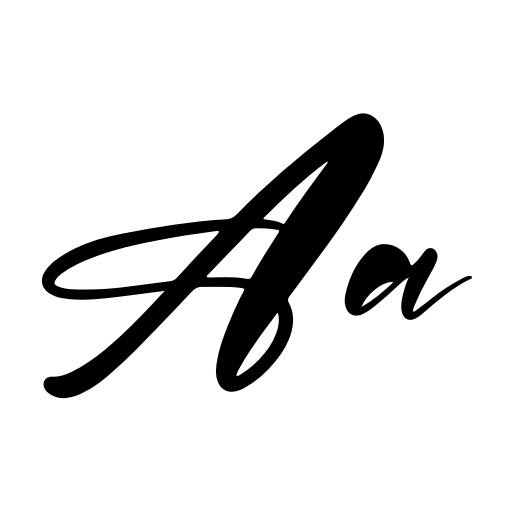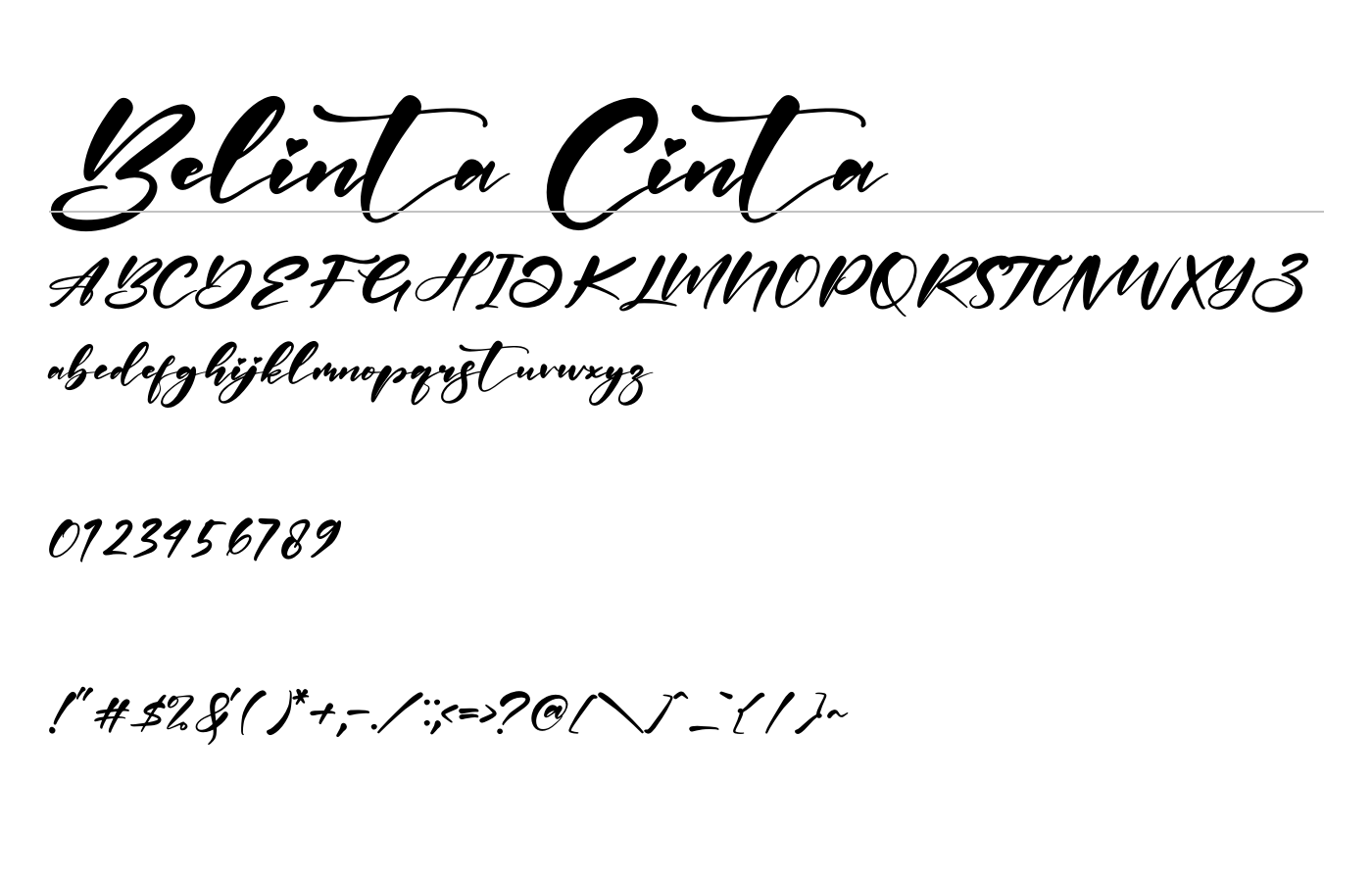
Belinta Cinta is an elegant script font characterized by its smooth, flowing strokes and a playful touch with heart-shaped details on some letters, giving it a romantic and personal feel. Its medium weight and slightly condensed width make it ideal for stylish headlines, logos, and invitations where a warm, creative, and feminine tone is desired. This font works beautifully in fashion, weddings, and branding projects that seek a blend of sophistication and charm.
Belinta Cinta Font
About Belinta Cinta Font
| Font family | Belinta Cinta Font |